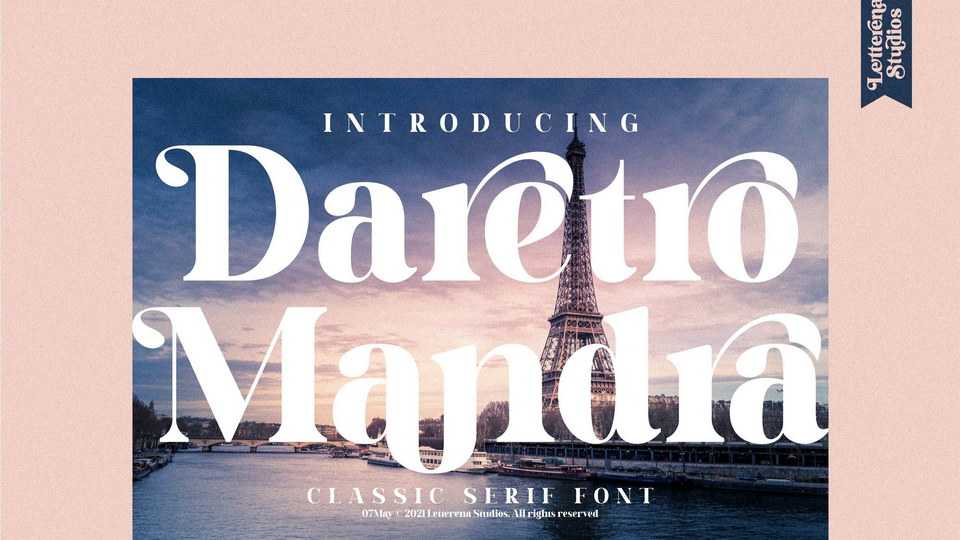
Download Daretro Mandra font, a bold, thick lettered serif font. Daretro Mandra can be used for various designs that require either an informal or formal touch.
Designer: Letterena Studios